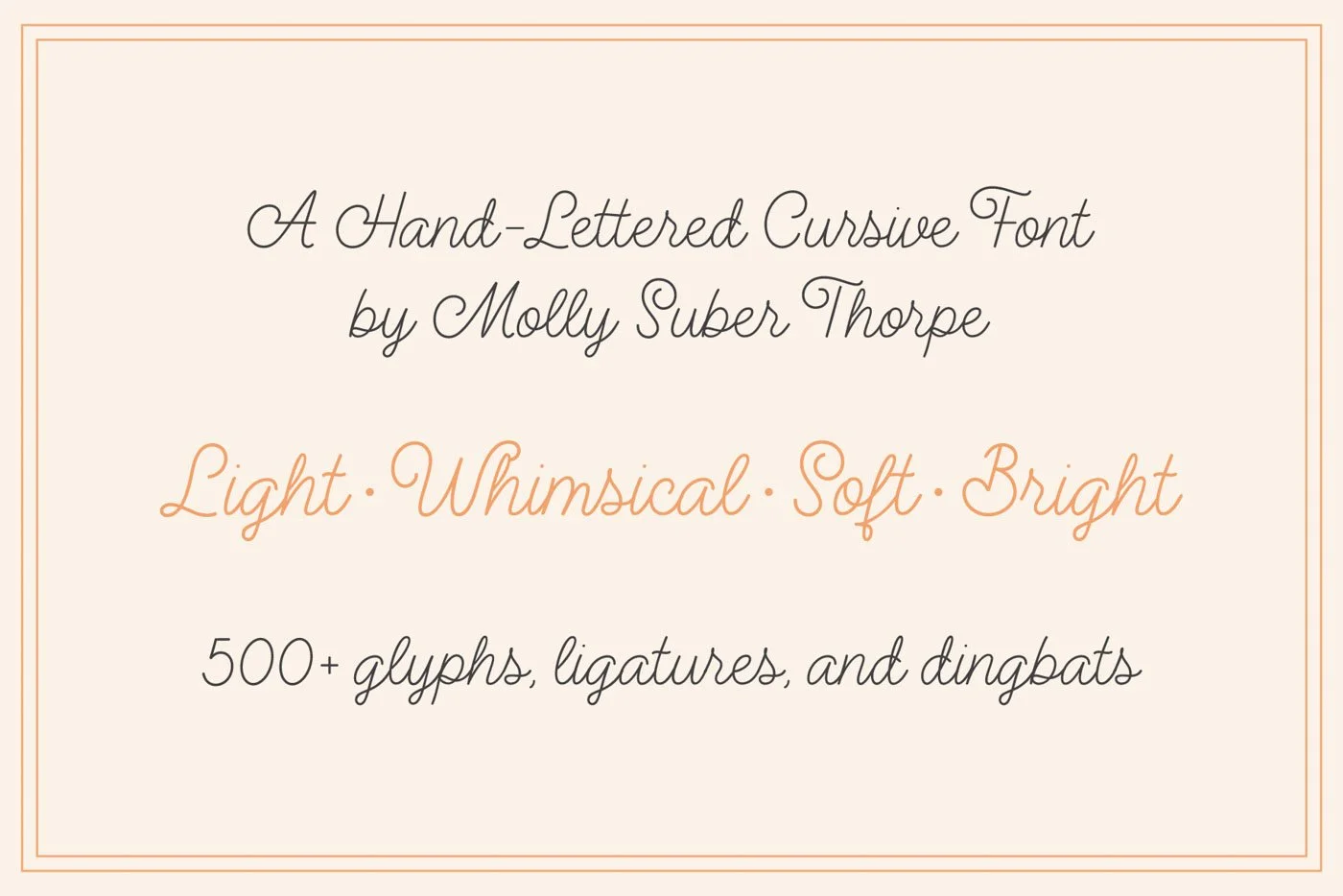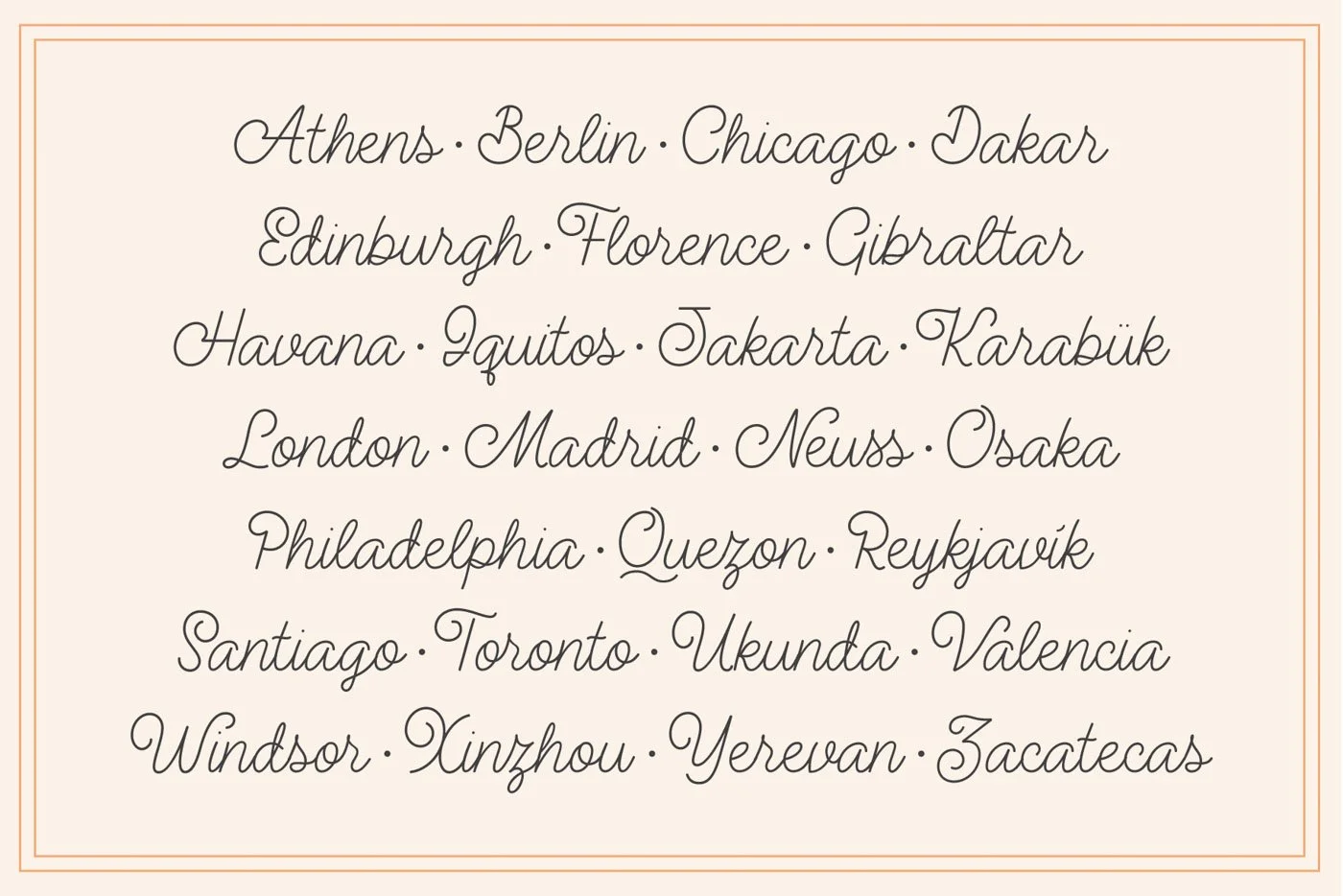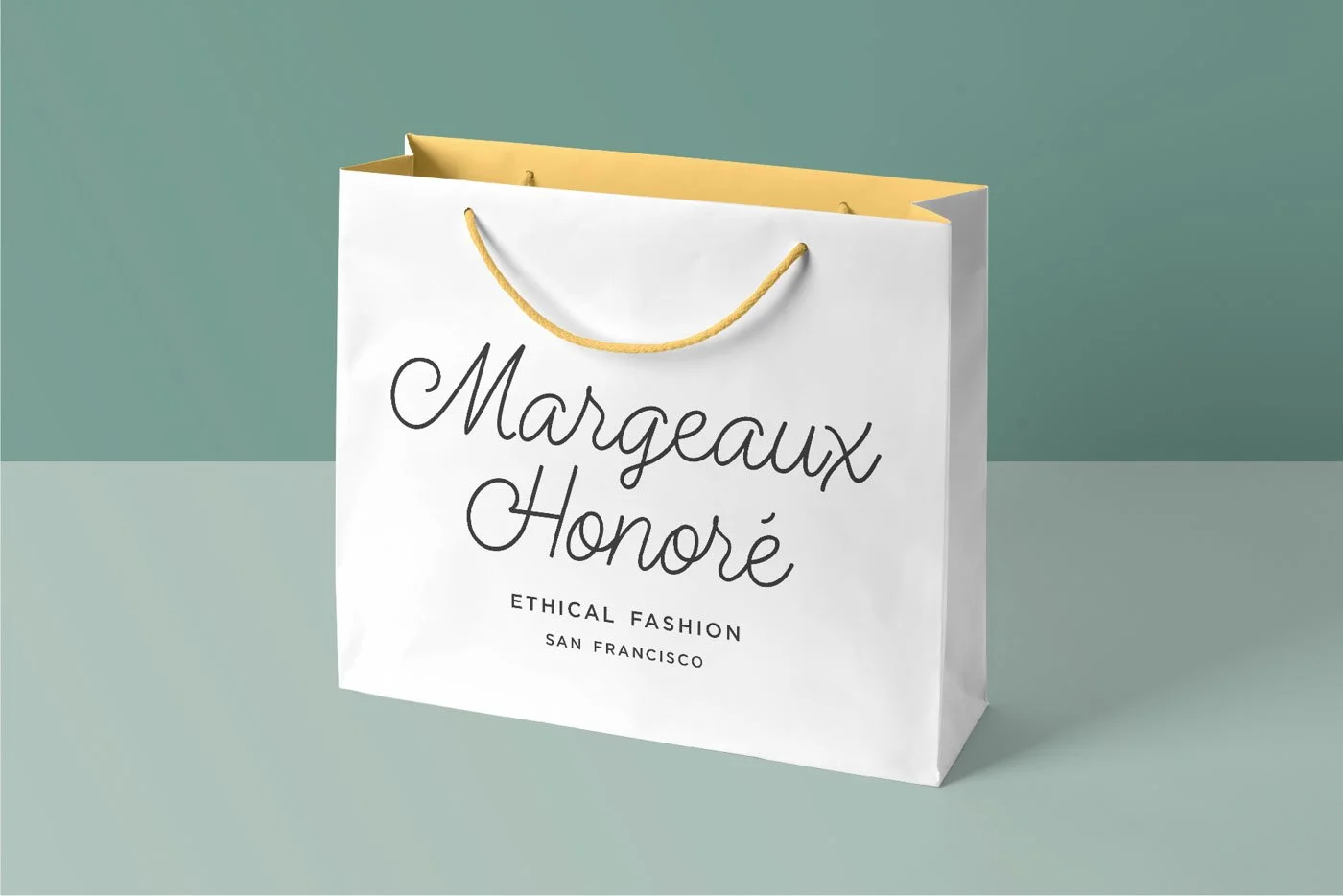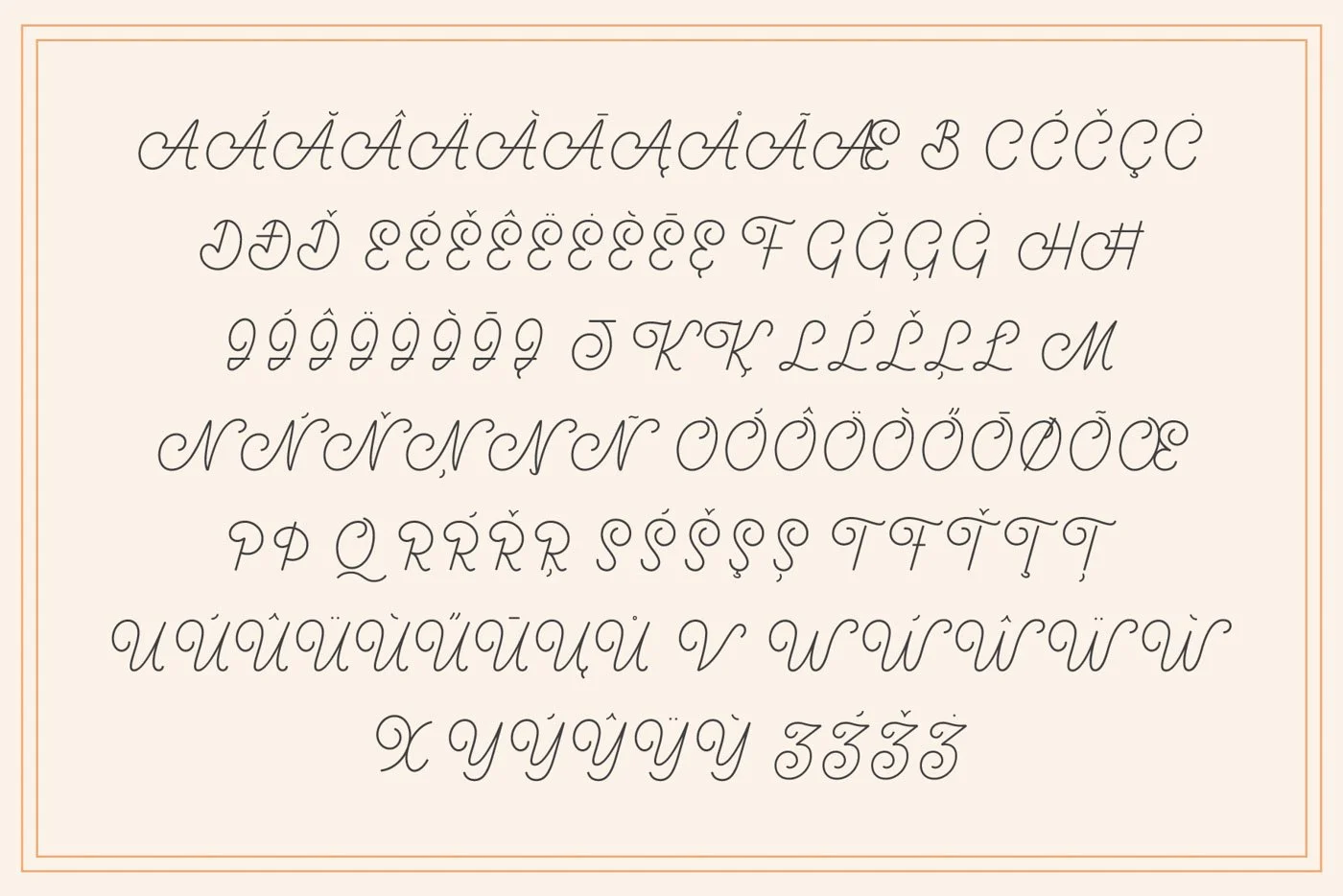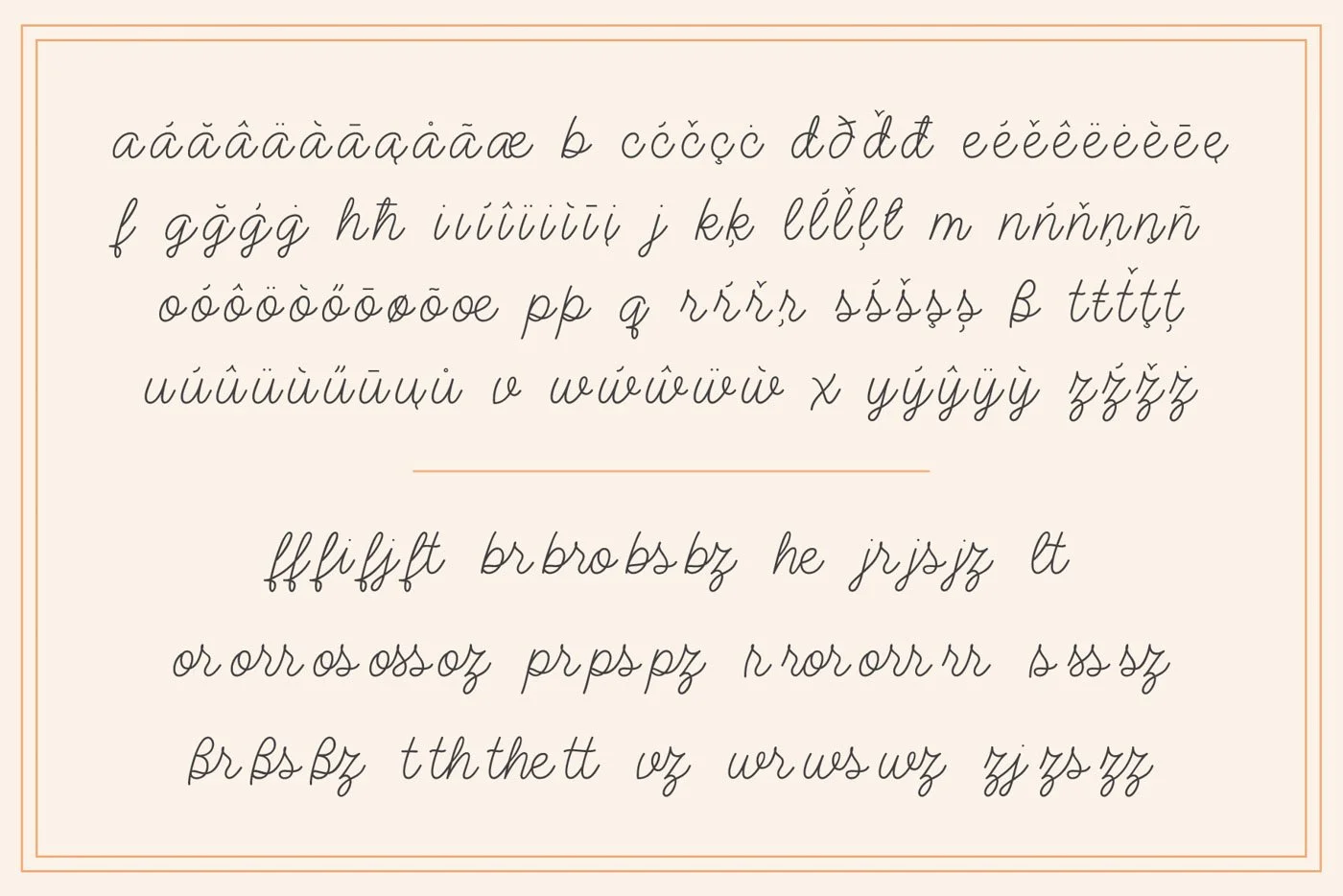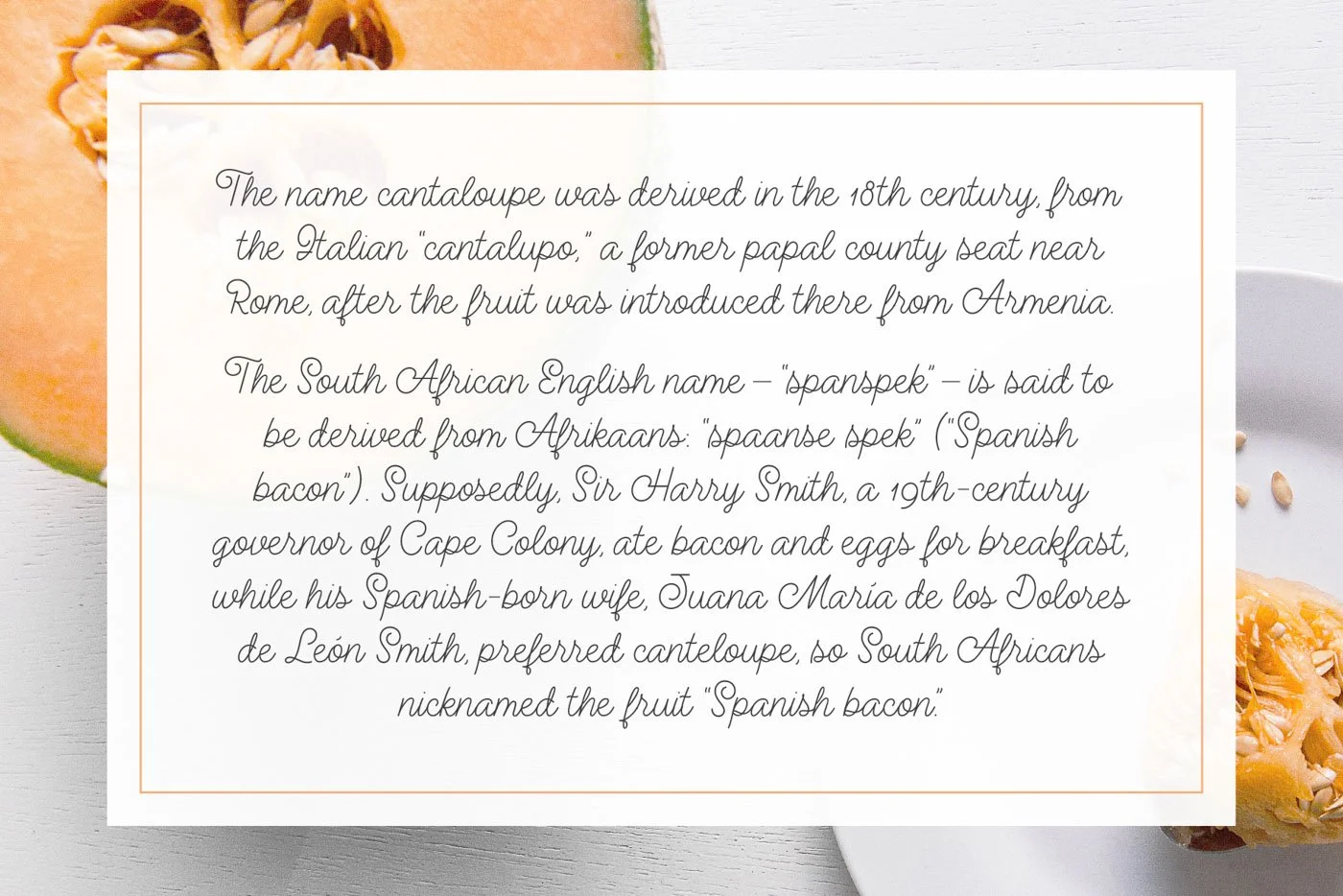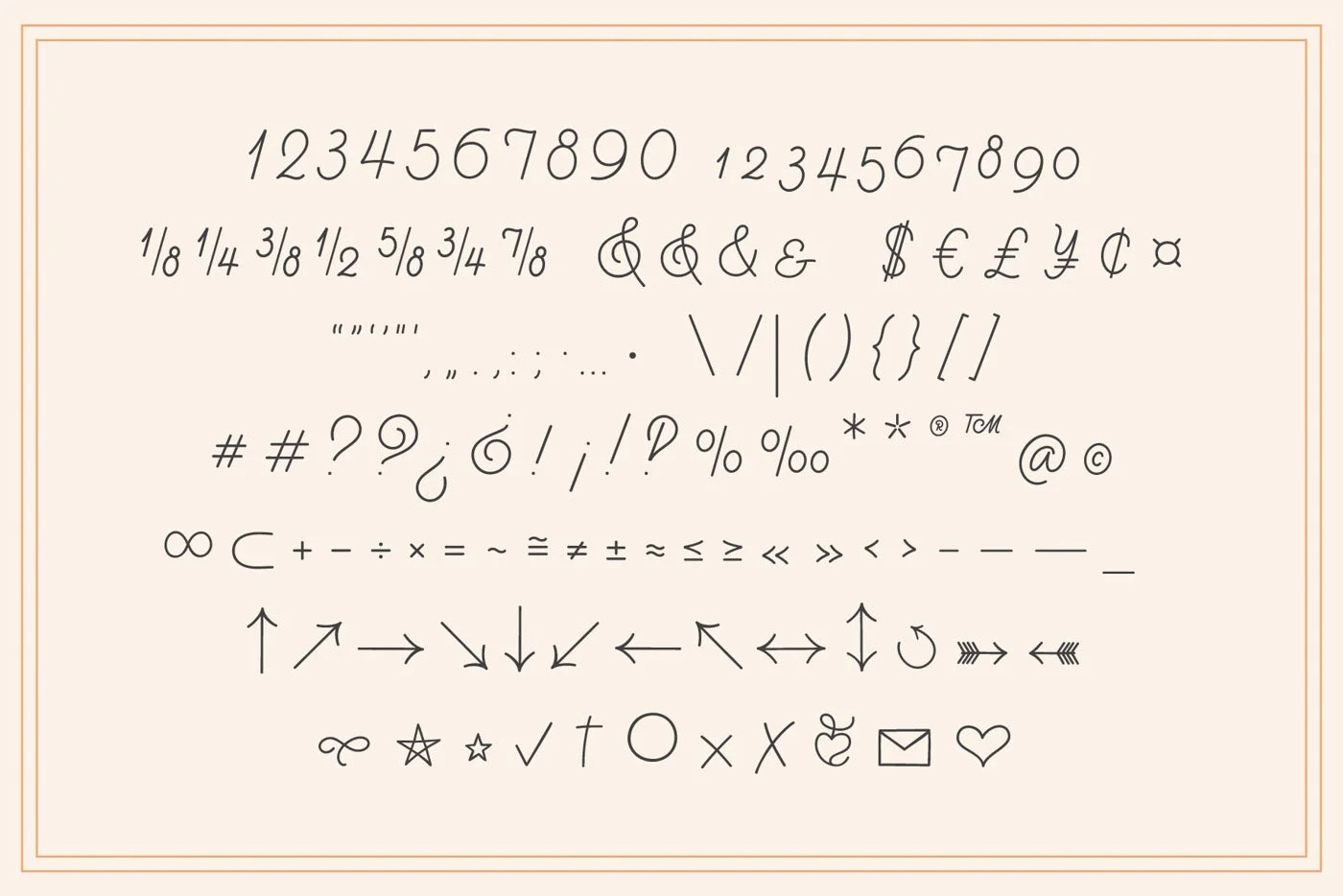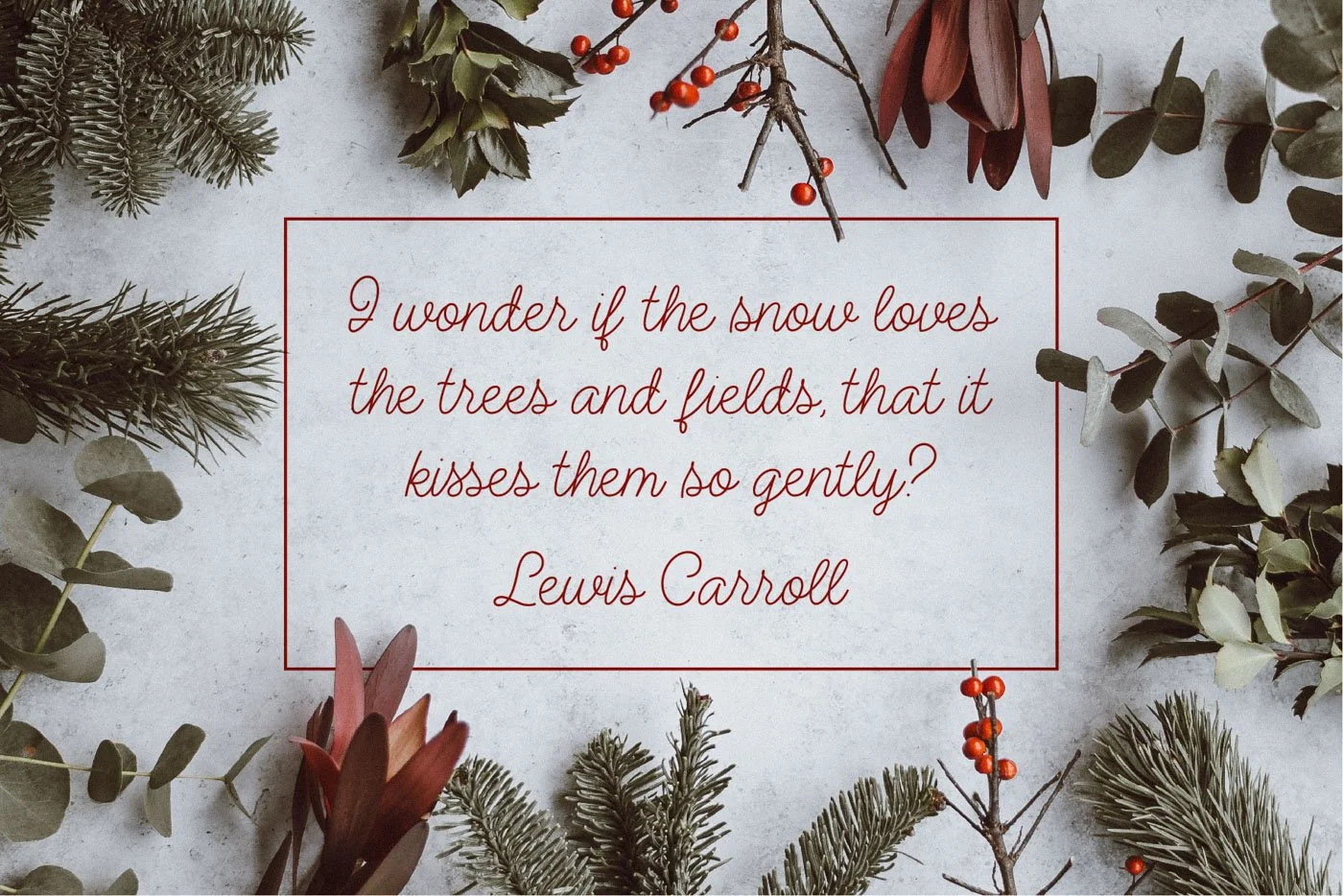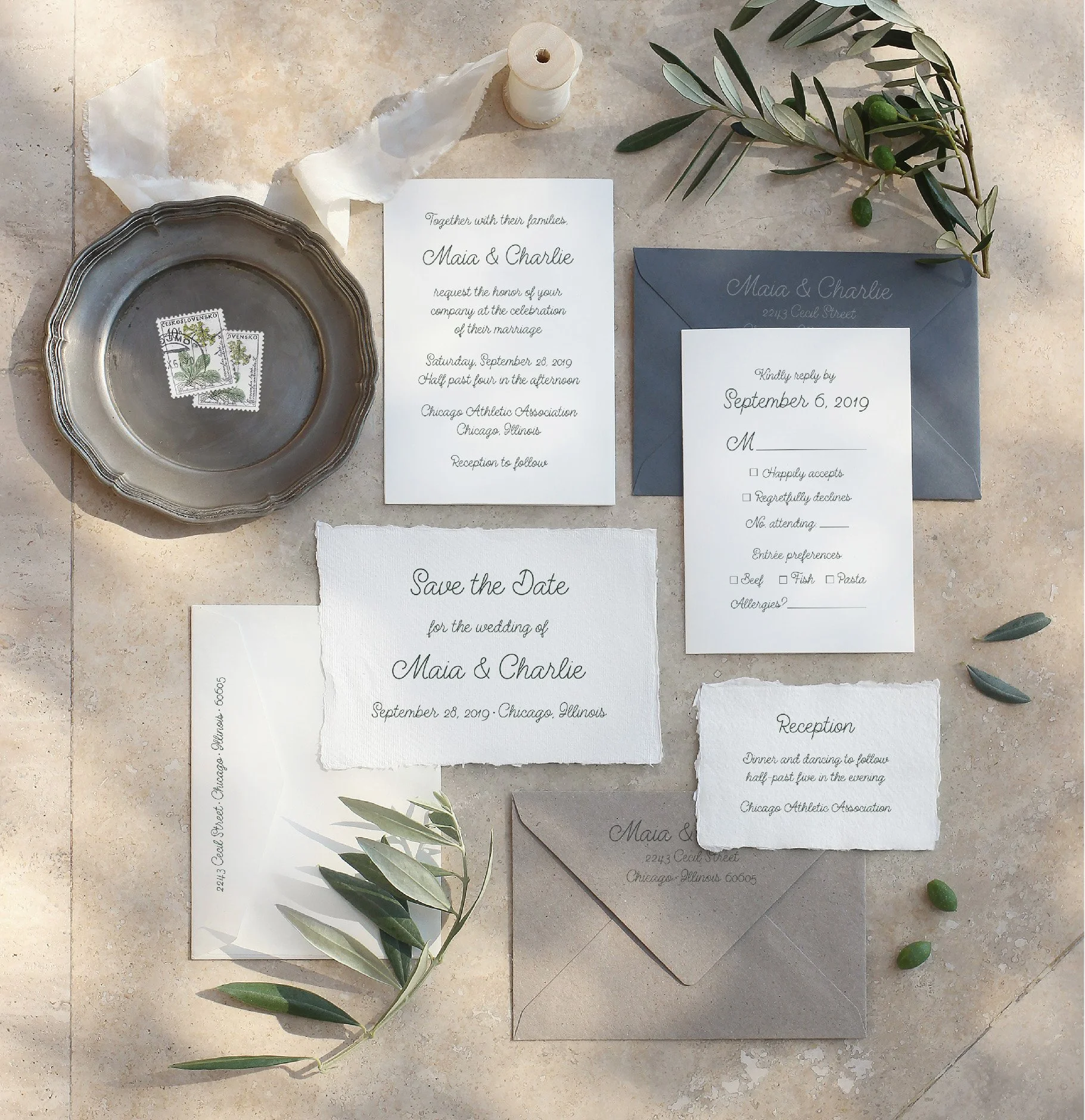
Honeydew Monoline Cursive Font
Honeydew Script: A Light, Whimsical, Soft & Bright Font
Honeydew is a calligraphic font I designed in a monoline script style. It is a modern twist on classic schoolhouse cursive, and is extremely versatile. Use this typeface for branding, social media, weddings, stationery, packaging, layout design, and advertising. The sky's the limit!
➺ Ligatures and alternates
Honeydew has 527 glyphs, including the complete Latin alphabet (upper and lowercase), numbers (lining, old style, and fractions), punctuation and diacritics, and over 40 standard and discretionary ligatures.